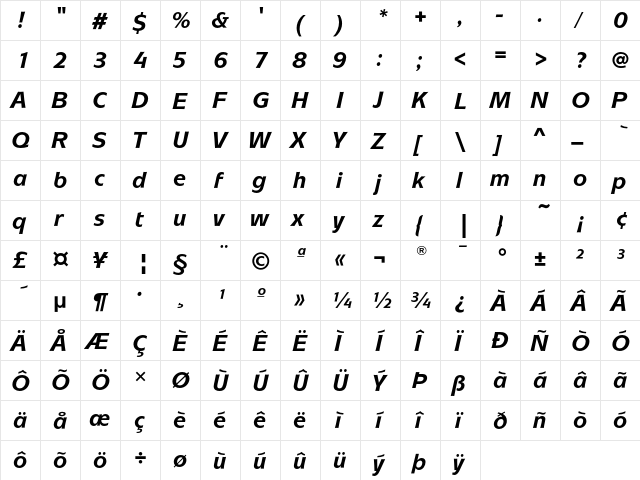
MixageEF BoldItalic
Design Context for MixageEF Typeface
MixageEF offers clean, dependable letterforms without strong stylistic allegiance, making it a practical choice for designers who need flexibility. Its italic angle brings a sense of urgency and motion to the letterforms. Its bold stroke weight gives it real presence on the page.
Pro Tip: Try MixageEF for annotation and caption copy alongside an upright companion — the contrast in angle creates a dynamic but ordered typographic system.